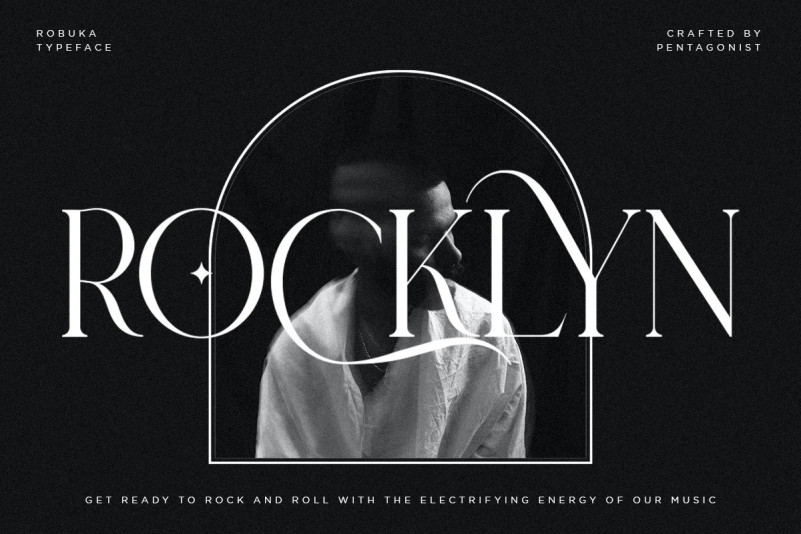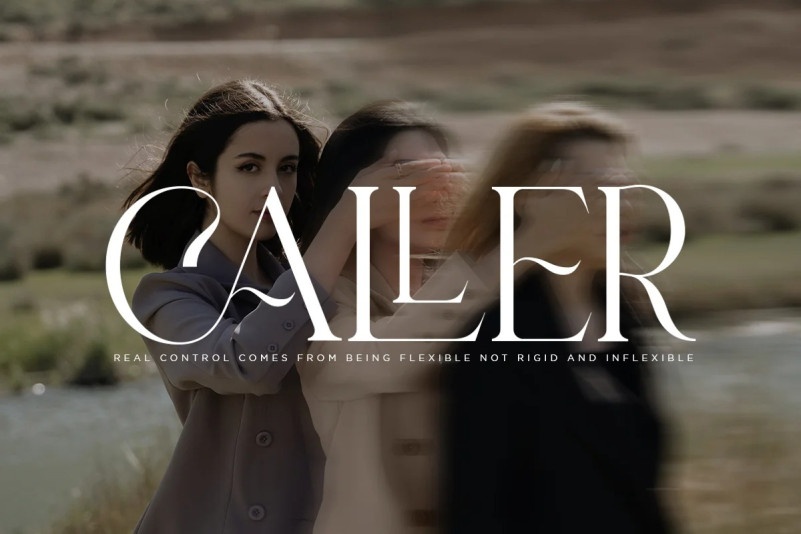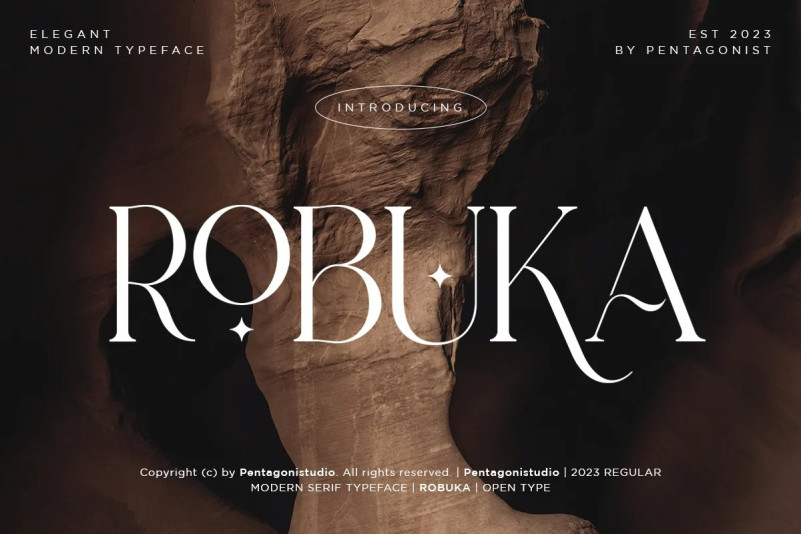
Robuka Font
Robuka Font – Is A Modern Serif Font with Stylistic Alternates and Ligatures. It can easily be matched to an incredibly large set of projects, so add it to your creative ideas and notice how it makes them stand out!